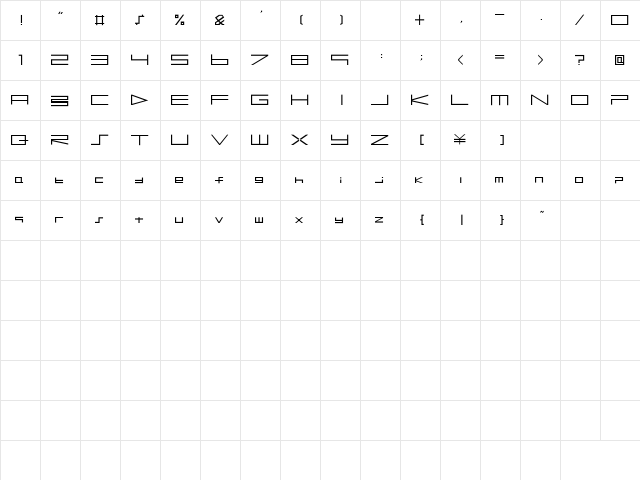
BTSE + PS2 FONT Regular Font Preview
BTSE + PS2 FONT Regular
Design Context for BTSE + PS2 FONT Typeface
BTSE + PS2 FONT offers clean, dependable letterforms without strong stylistic allegiance, making it a practical choice for designers who need flexibility.